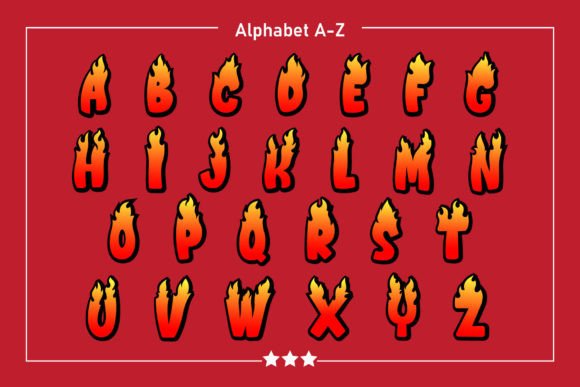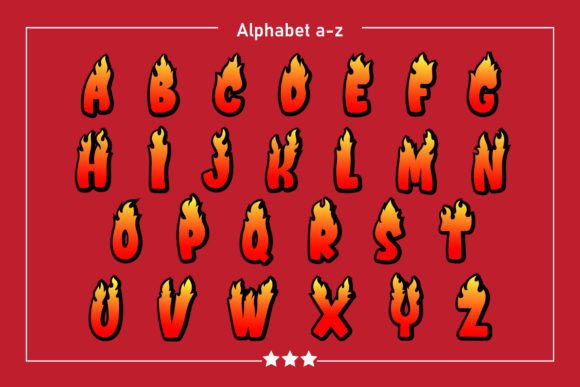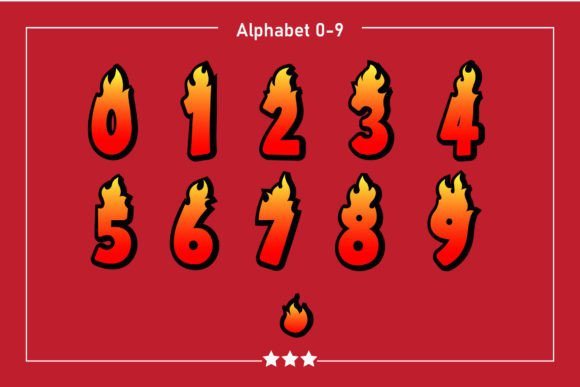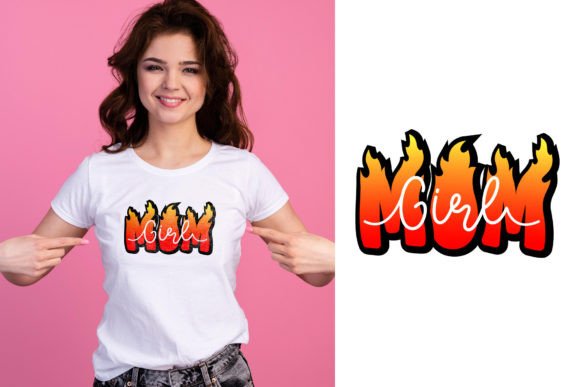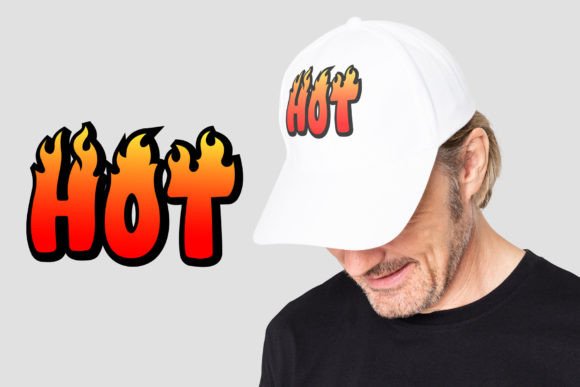
About Hot Fire Font
Introducing Hot Fire, a captivating and dynamic color font designed in the form of burning flames. This font is an incredible asset to add to your fonts’ library, as it has the potential to elevate any creation and make a powerful statement.
With Hot Fire, you can easily incorporate the fiery essence into your designs. Whether you’re working on posters, flyers, album covers, social media graphics, or any other project, this font will bring a bold and energetic touch that demands attention.
The burning flame design of Hot Fire makes it suitable for a wide range of topics and themes. It adds a sense of intensity, passion, and excitement to your artwork. Whether you’re designing for sports events, music festivals, branding, or any project that needs a touch of fiery energy, Hot Fire will deliver.
Embrace the power and intensity of Hot Fire as you explore its endless possibilities. Experiment with different color combinations, sizes, and layouts to create designs that truly ignite the imagination. Let Hot Fire be the fiery element that sets your creations apart and leaves a lasting impression.
So, add Hot Fire to your font collection and unleash its burning energy in your designs. Let it be the font that catches the eye and sparks the imagination. With Hot Fire, your creations will burn bright and leave a blazing impression.